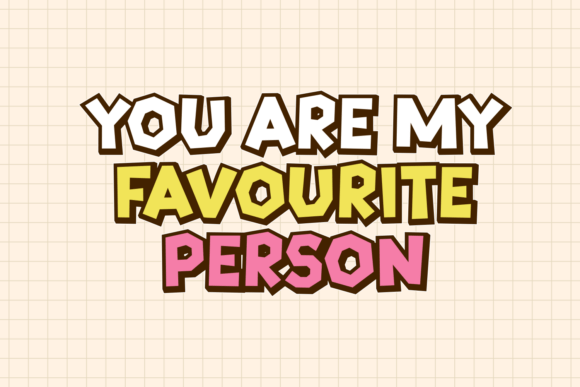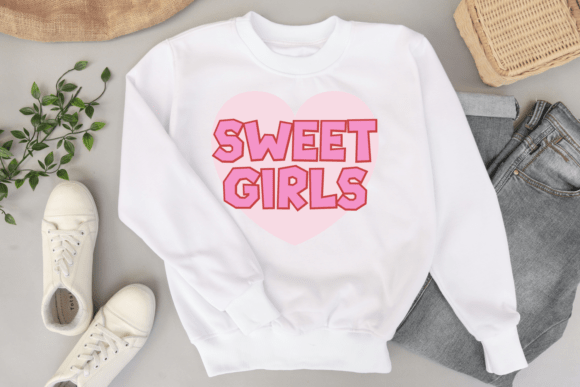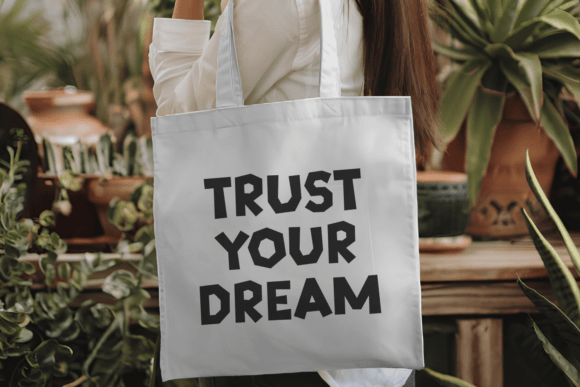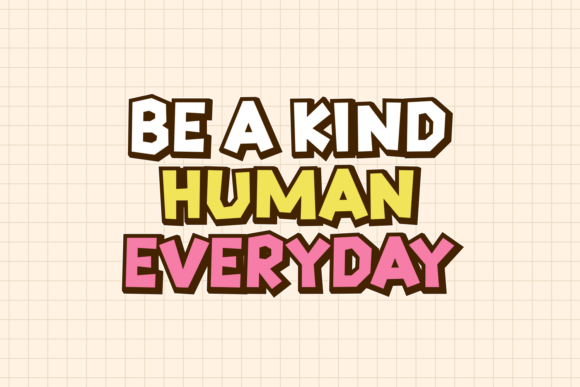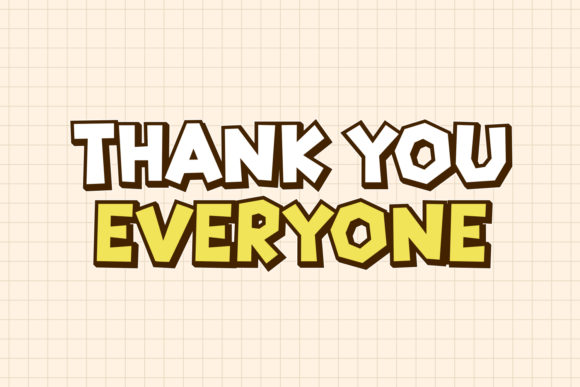
Bring a Touch of Whimsy to Your Design
Remember those carefree days spent brainstorming ideas with friends, scribbling down notes and laughing together? Those moments of pure creativity are what make design so special. And now, imagine infusing that same sense of joy and spontaneity into your work with the perfect font.
Enter the Caramel Popcorn Font, a delightful and robust typeface that’s sure to add a playful twist to your creative projects. With its charming design and light-hearted style, this font is the perfect companion for designers looking to inject some whimsy into their work. Whether you’re crafting a blog post, designing a social media campaign, or creating a marketing brochure, the Caramel Popcorn Font is sure to bring a smile to your audience’s faces.
Caramel Popcorn Font Key Features
- Unique Characteristics: Caramel Popcorn Font features a unique, hand-drawn design with a playful and whimsical feel, making it perfect for adding a touch of personality to your designs.
Caramel Popcorn Font Review
I recently had the chance to work with the Caramel Popcorn font, and I must say it’s an interesting choice. ✨ The font’s playful and whimsical feel is perfect for creating a fun and lighthearted atmosphere in branding materials, advertisements, or even children’s products. The font’s unique characteristics, such as its irregular letterforms and bold lines, add a sense of personality to any design.
Here are some of the things that work well with the Caramel Popcorn font:
- ✨ Versatility: The font can be used in a variety of contexts, from food packaging to event invitations.
- ✨ Unique feel: The font’s playful and whimsical feel is perfect for creating a memorable brand identity.
- ✨ High-quality: The font is well-crafted and looks great at various font sizes.
- ⚠️ Limited legibility: In certain situations, the font’s irregular letterforms can make it difficult to read.
- ⚠️ Limited font sizes: While the font looks great at larger sizes, it can become pixelated at smaller sizes.
Overall, I think the Caramel Popcorn font is a great choice for designers looking to add a touch of whimsy to their designs. While it may have some limitations, the font’s unique feel and versatility make it a great option for a wide range of projects.
Use the Caramel Popcorn font to add a playful and whimsical touch to your designs.
Pair it with bold and bright colors to create a visually appealing contrast.
Experiment with different font sizes and styles to add depth and interest to your text elements.
Use the Caramel Popcorn font for:
Children’s party invitations and decorations
Food and dessert labels
Playful and whimsical branding and marketing materials